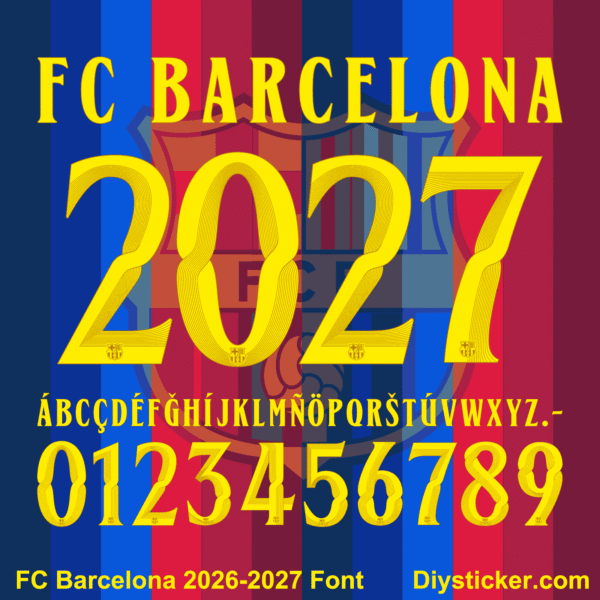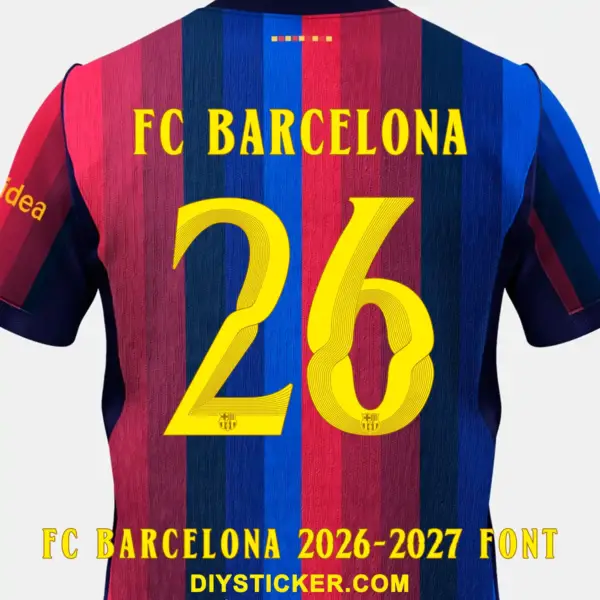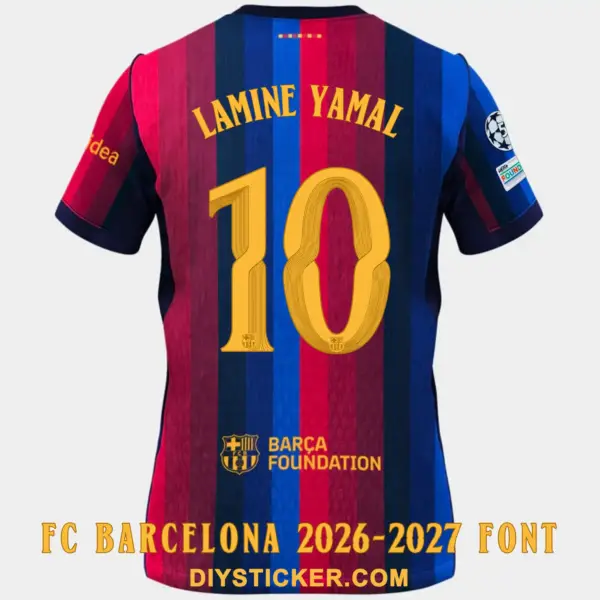
Celebrate the proud Catalan identity on the grandest European stage with this premium typography asset. This package delivers the official cup-style FC Barcelona 2026-2027 UCL font and custom wavy-inline numeric vector layout, fully optimized to meet UEFA equipment regulations for the upcoming Champions League campaign. Built specifically for independent apparel brands, premium custom uniform printers, and professional vinyl cutting shops, this product features an automated instant digital download link immediately following secure checkout.
FC Barcelona 2026-2027 Font & Numbers Vector Kit: Premium UEFA Champions League Typography
Upgrade your custom print production with the high-performance FC Barcelona 2026-2027 UCL font and complete numbers set. Designed to perfectly replicate the distinctive club look worn on the pitch at the Spotify Camp Nou, this digital toolkit offers unrivaled geometric precision. Whether you are creating an authentic custom name-set for a passionate Culé or compiling bold promotional sports signage, our vector files ensure factory-fresh alignment. Discover more iconic European club layouts by exploring our curated repository.
Aesthetic Design Breakdown & Typography Engineering
The FC Barcelona 2026-2027 font showcases a highly unique, artistic athletic geometry that brings a creative, rhythmic presence to the pitch:
Intricate Wave Multi-Line Detailing: Moving away from standard flat fills, the core feature of the numeric set is a beautiful, flowing wave pattern composed of parallel contour lines. These curved internal lines mimic fabric textures and natural movement, adding incredible dimension to the numbers.
Condensed, Elegant Letterforms: The alphabet features a tall, compressed serif structure with subtle chiseled terminals. This architecture provides an authoritative yet classical look, ensuring player names drape beautifully across the upper shoulders.
Integrated Club Crest Identity: Positioned perfectly within the lower baseline of each large digit is the crisp, official-style FC Barcelona crest emblem, ensuring complete replica authenticity for high-end customization.
Vibrant Catalan Yellow Palette: Rendered in a brilliant gold/yellow tone, this font profile provides exceptional visual contrast when pressed onto the club’s iconic blue and deep red vertical stripes.